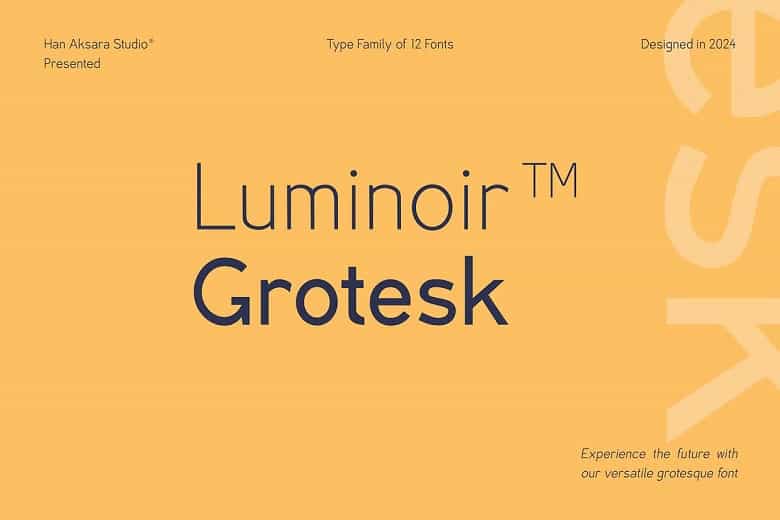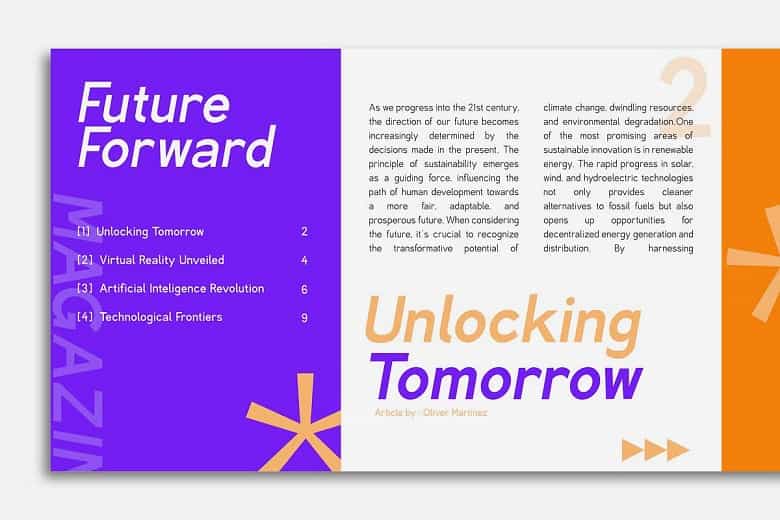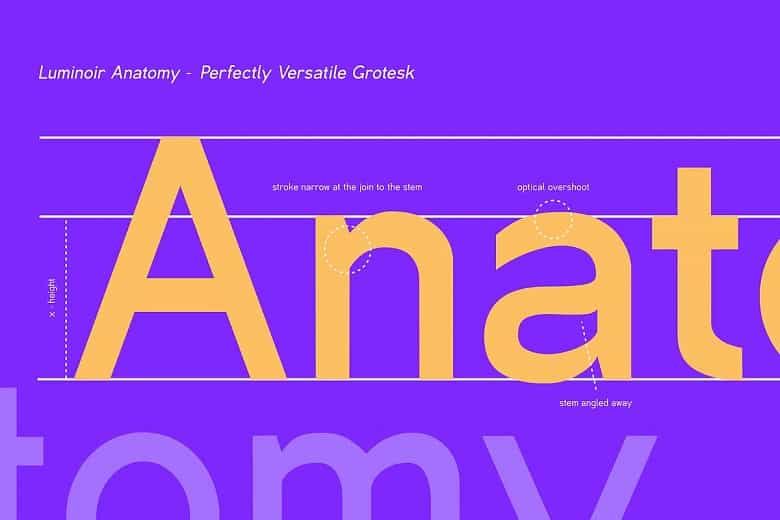
Luminoir Grotesk is a new variable sans-serif typeface that represents flexibility, legibility, and elegance. Luminoir Grotesk is a font that is inspired by today’s sans-serif fonts and their blend of modernity with a slight hint of sophistication, which makes it suitable for most designs. Another peculiarity of Luminoir Grotesk is the stem which is tilted slightly to the right when connected with other letter elements, which makes the font look more futuristic but without losing the traditional features of the sans-serif fonts.